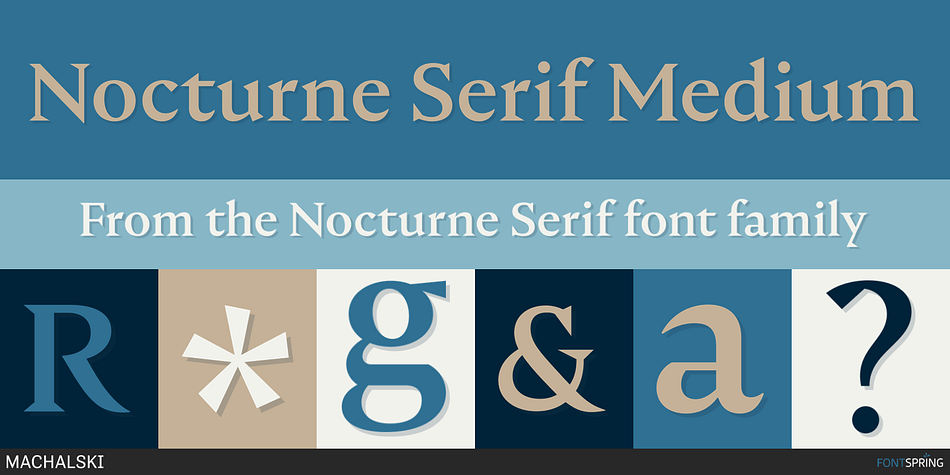
Nocturne Serif Medium
Designed by Mateusz Machalski, Nocturne Serif is a serif font family. This typeface has twenty styles and was published by MACHALSKI.
Nocturne PRO is a typeface family consisting of the Serif (2016) and Sans (2025) variants. Regular style was created as part of the Warszawskie kroje project. The starting point was inspired by the plaques commemorating Warsaw’s World War II battle and martyrdom sites, designed in 1949 by Karol Tchorek in Warsaw. Nocturne PRO is a visual story about Warsaw, where influences from different cultures and aesthetics meet to create a coherent ecosystem. Despite its Renaissance proportions and expressive italics, Nocturne PRO has very sharp and geometric details. Due to its great popularity, the family was expanded in 2025 with a brand new Sans style. Under the direction of Mateusz Machalski, they also took part in the project: Karol Mularczyk, Malgorzata Bartosik and Borys Kosmynka. The entire family will work well in both longer text composition and brranding applications.
Designer Mateusz Machalski